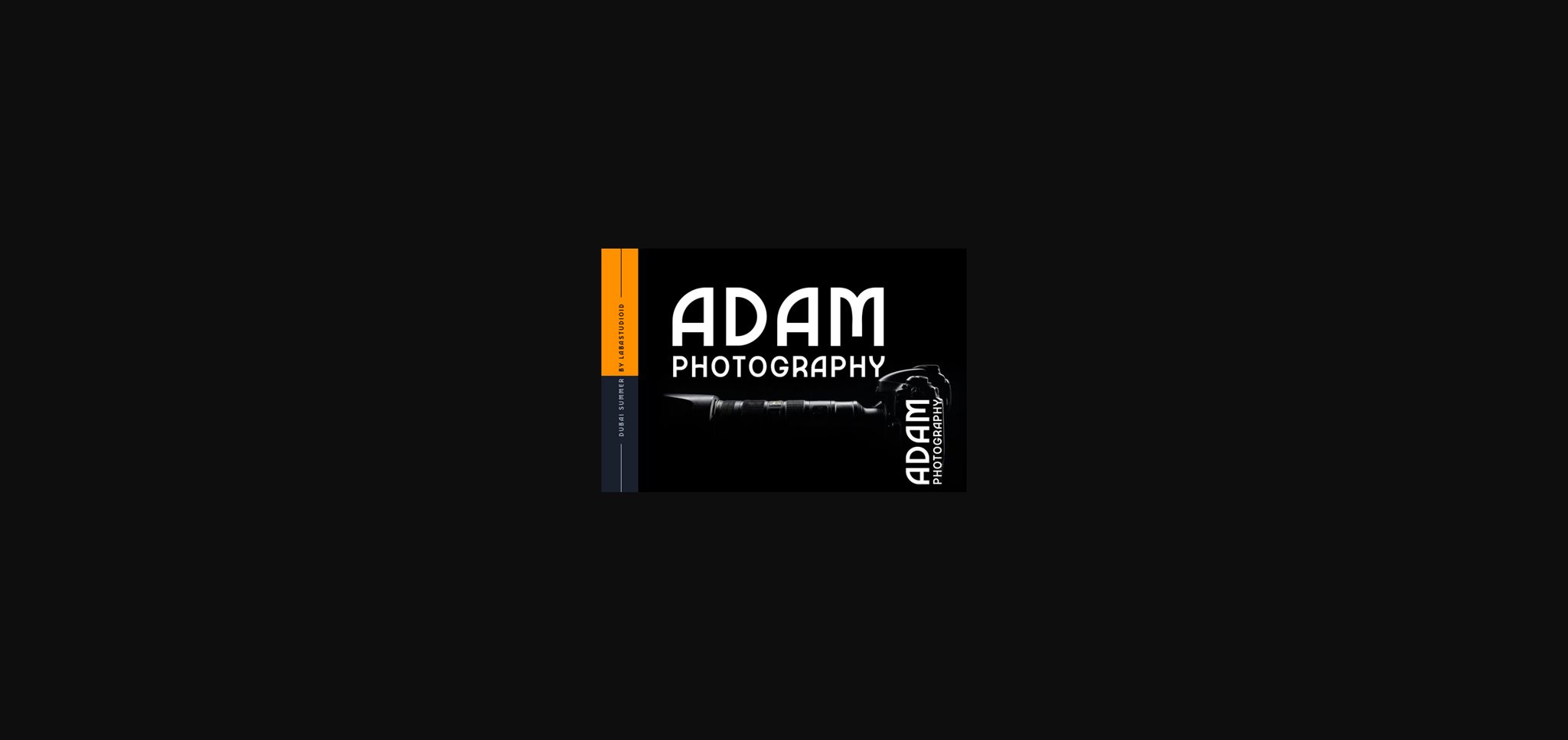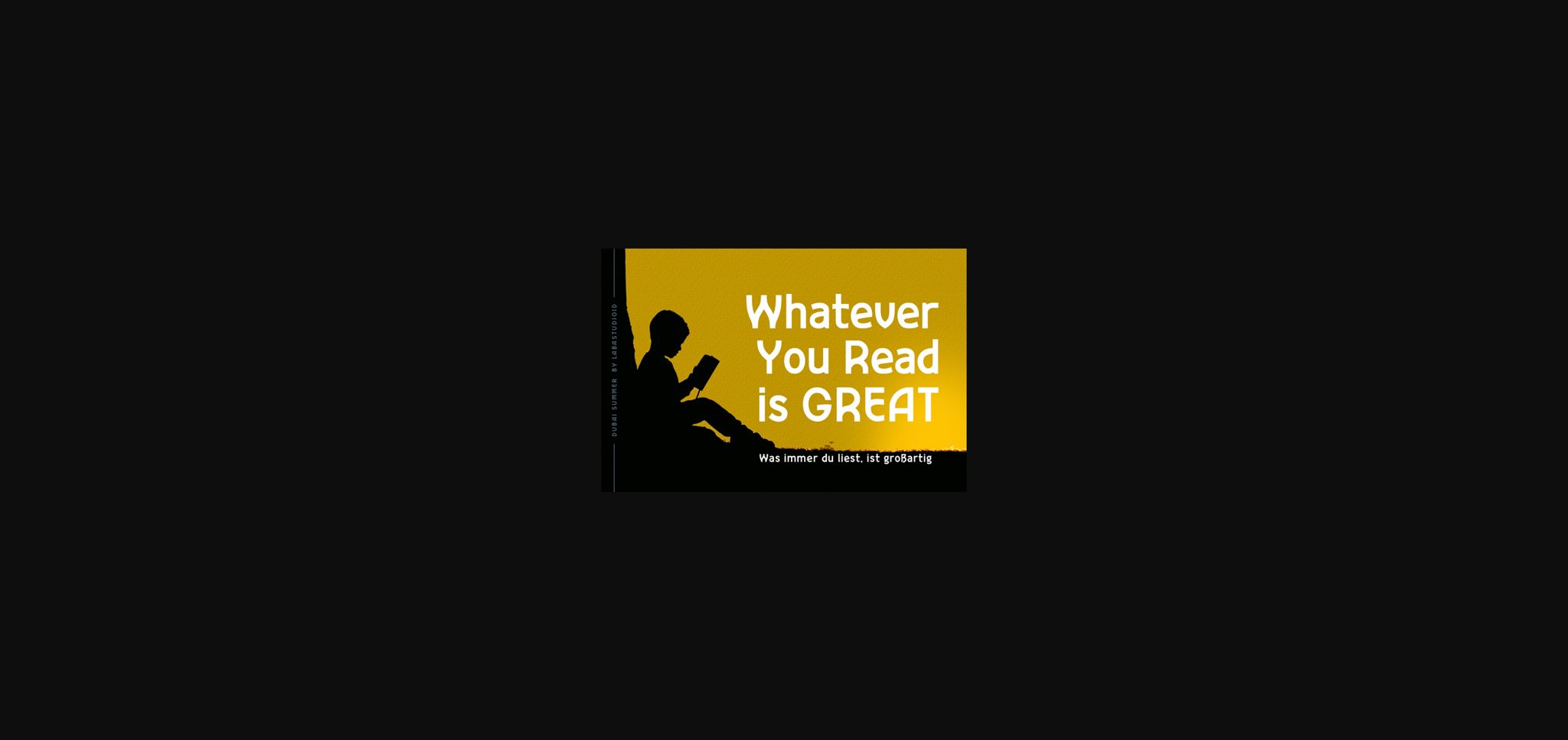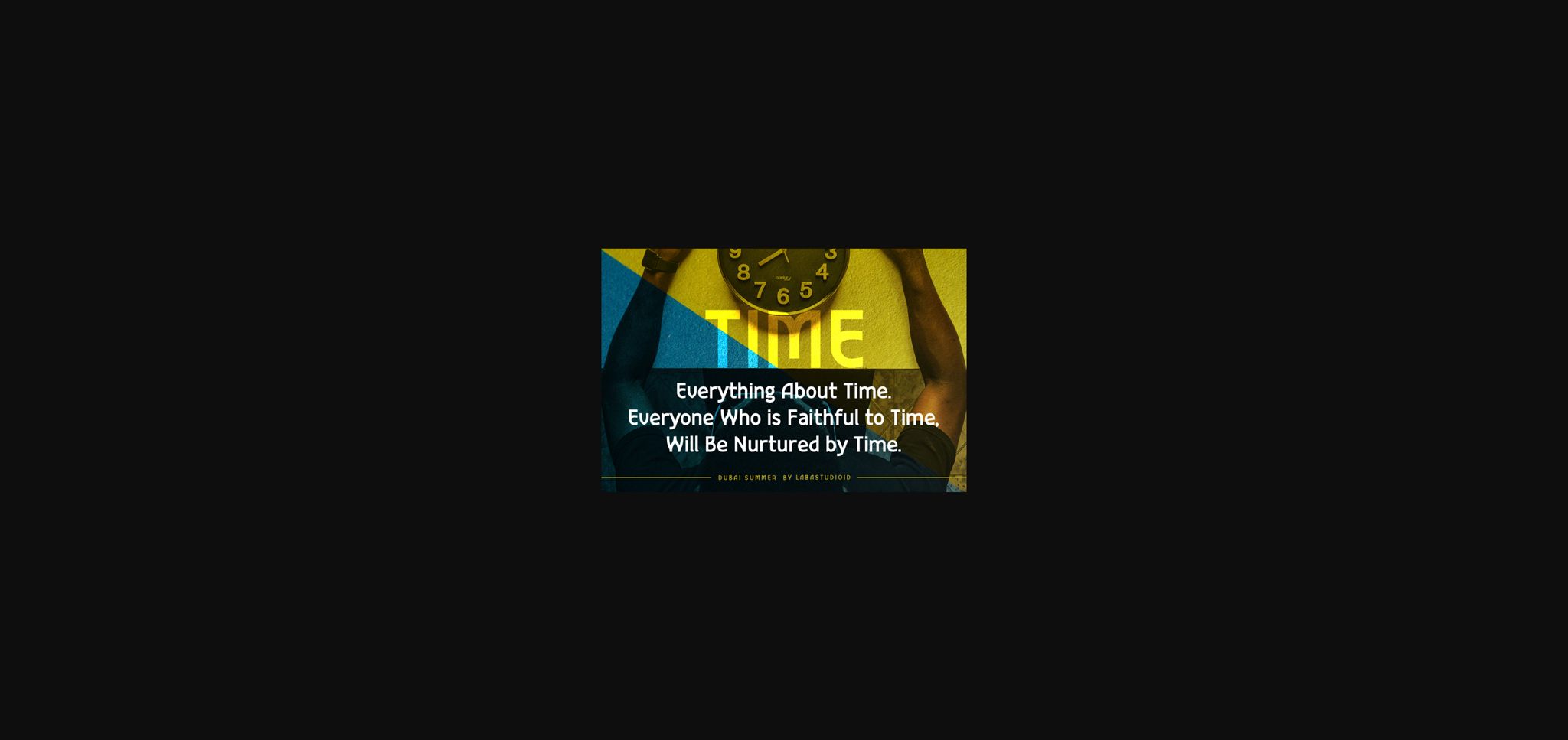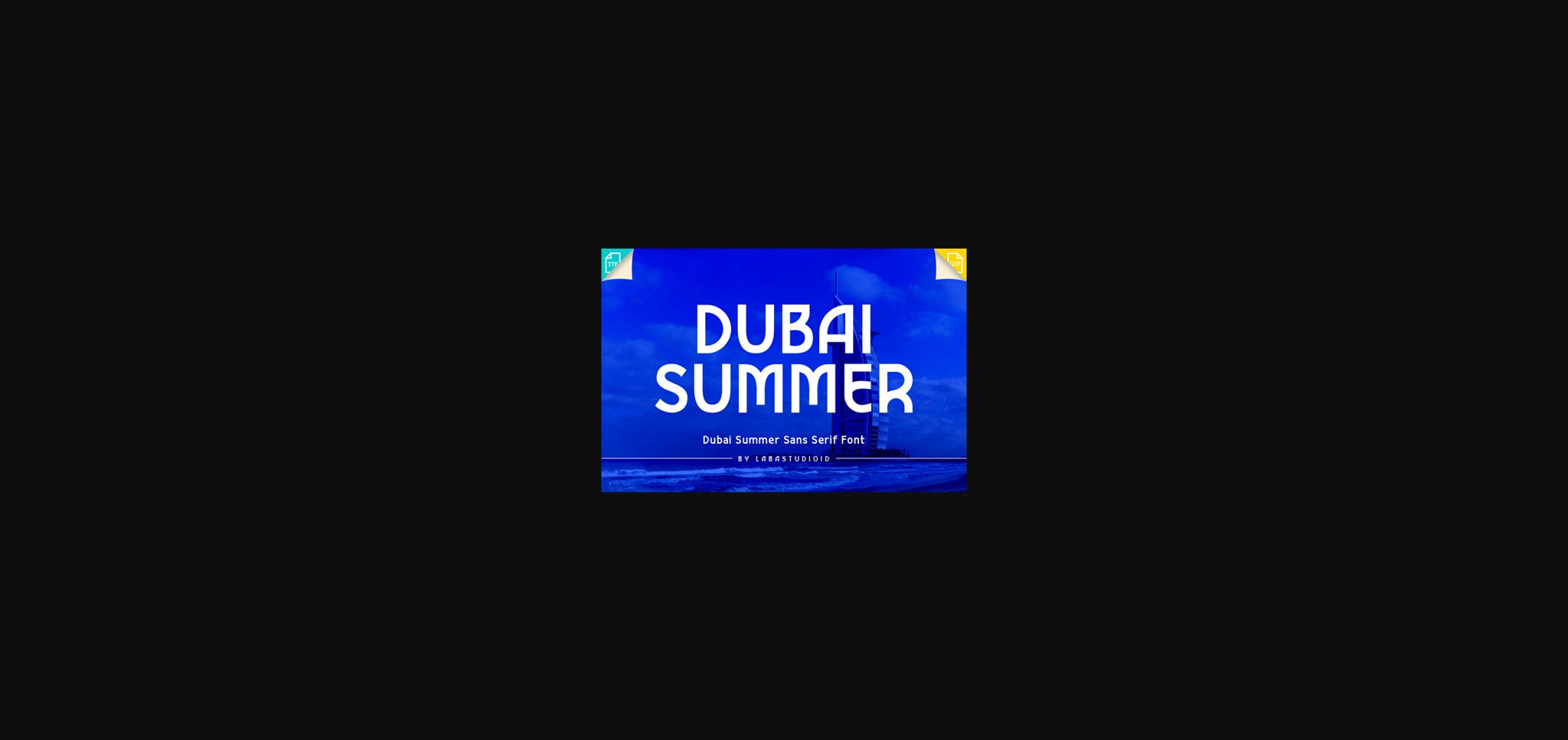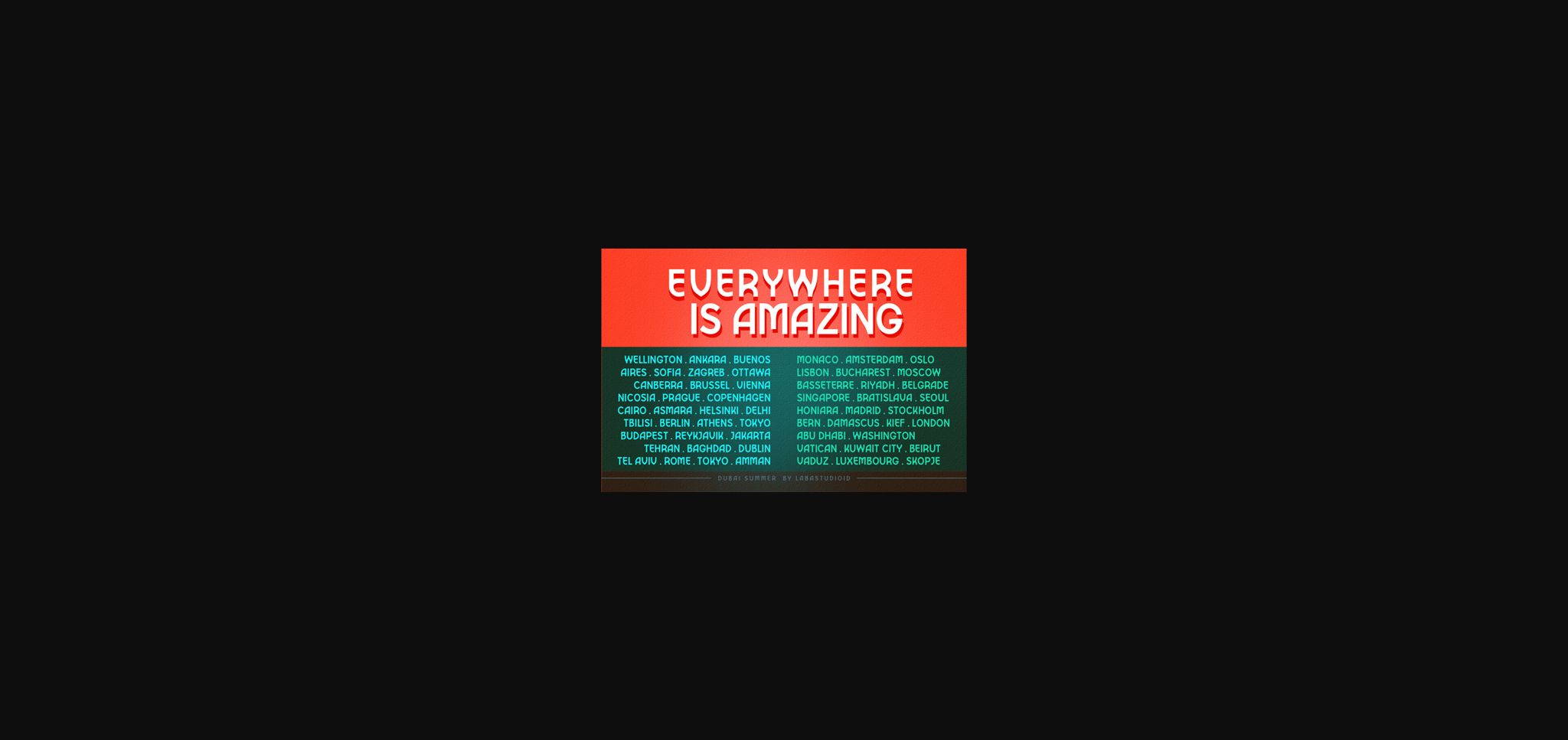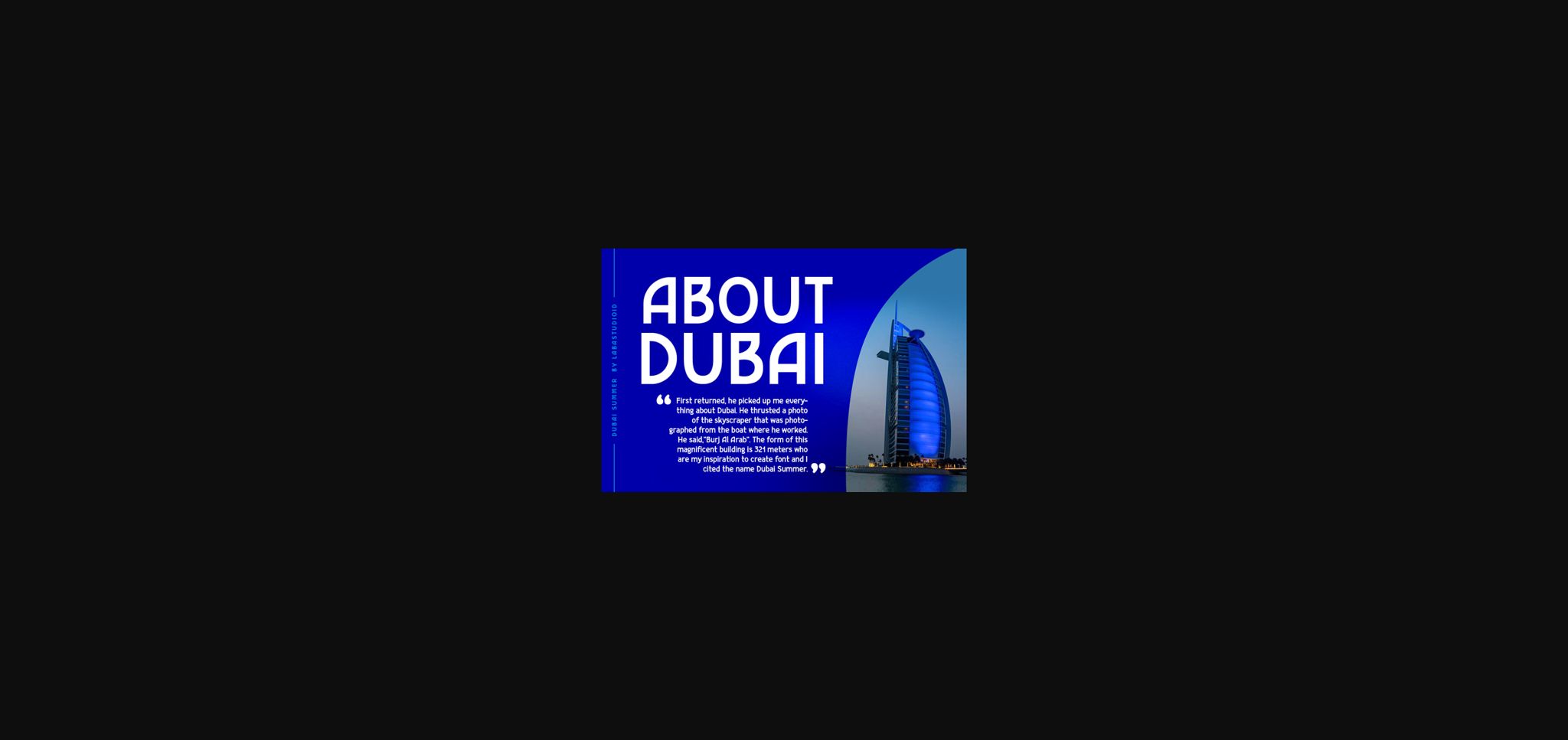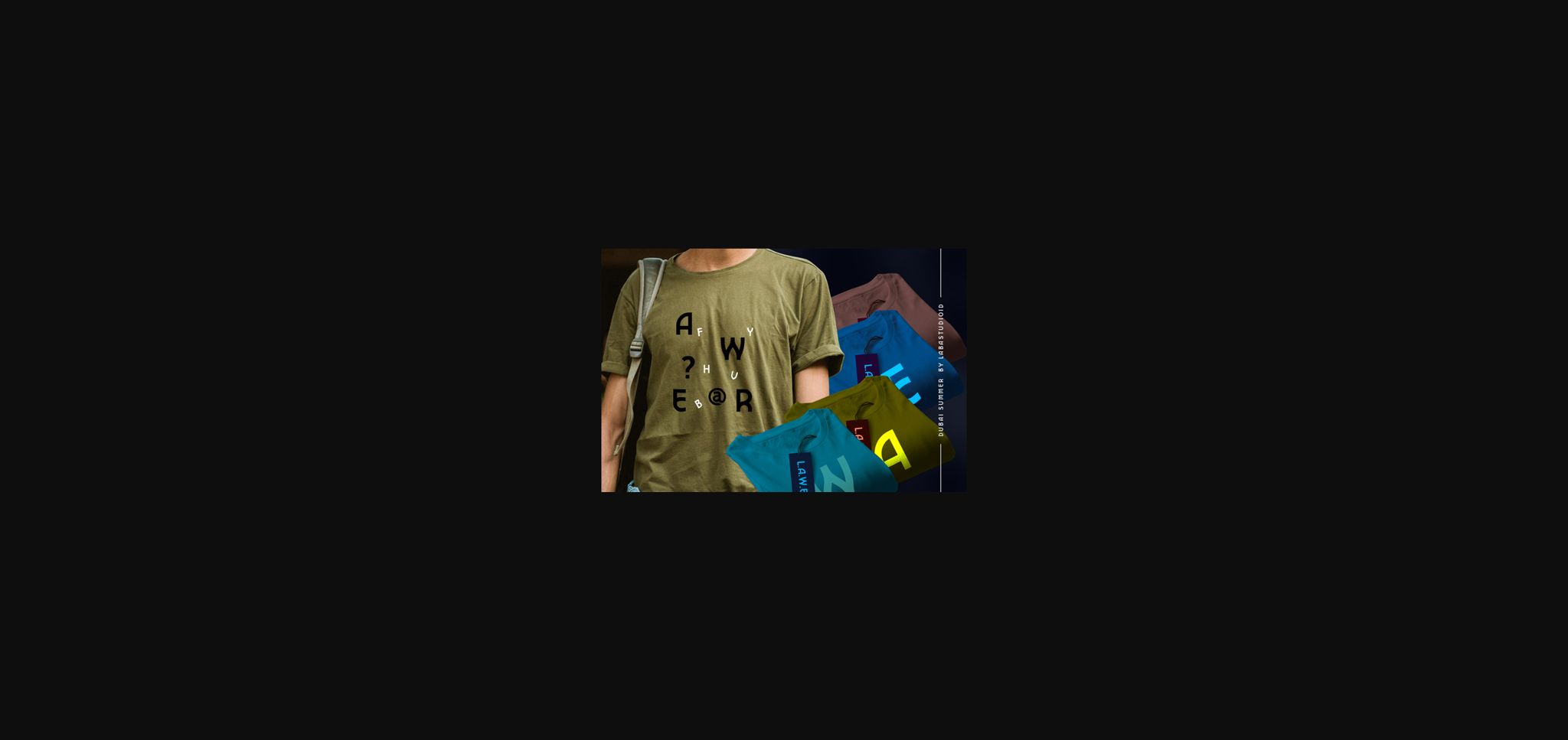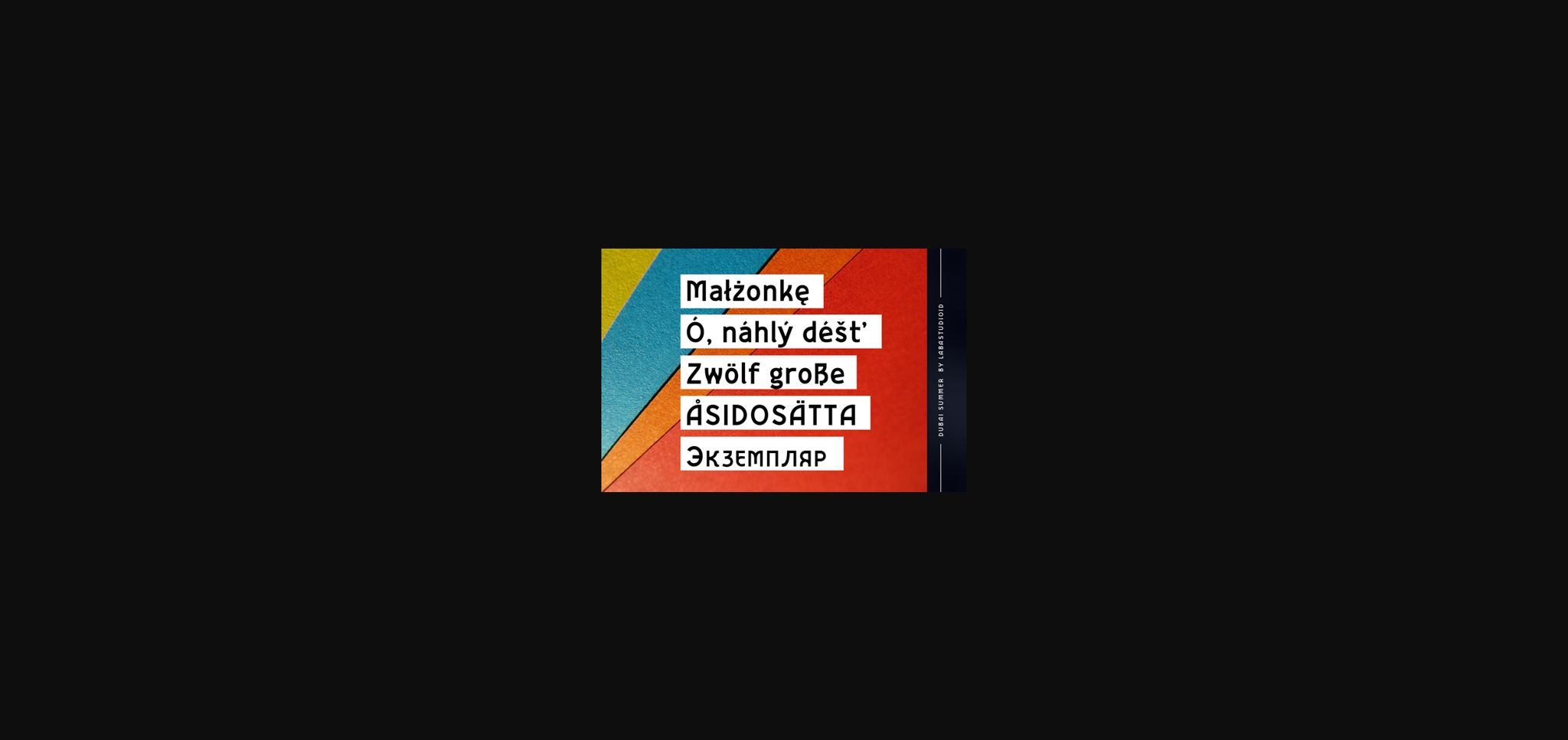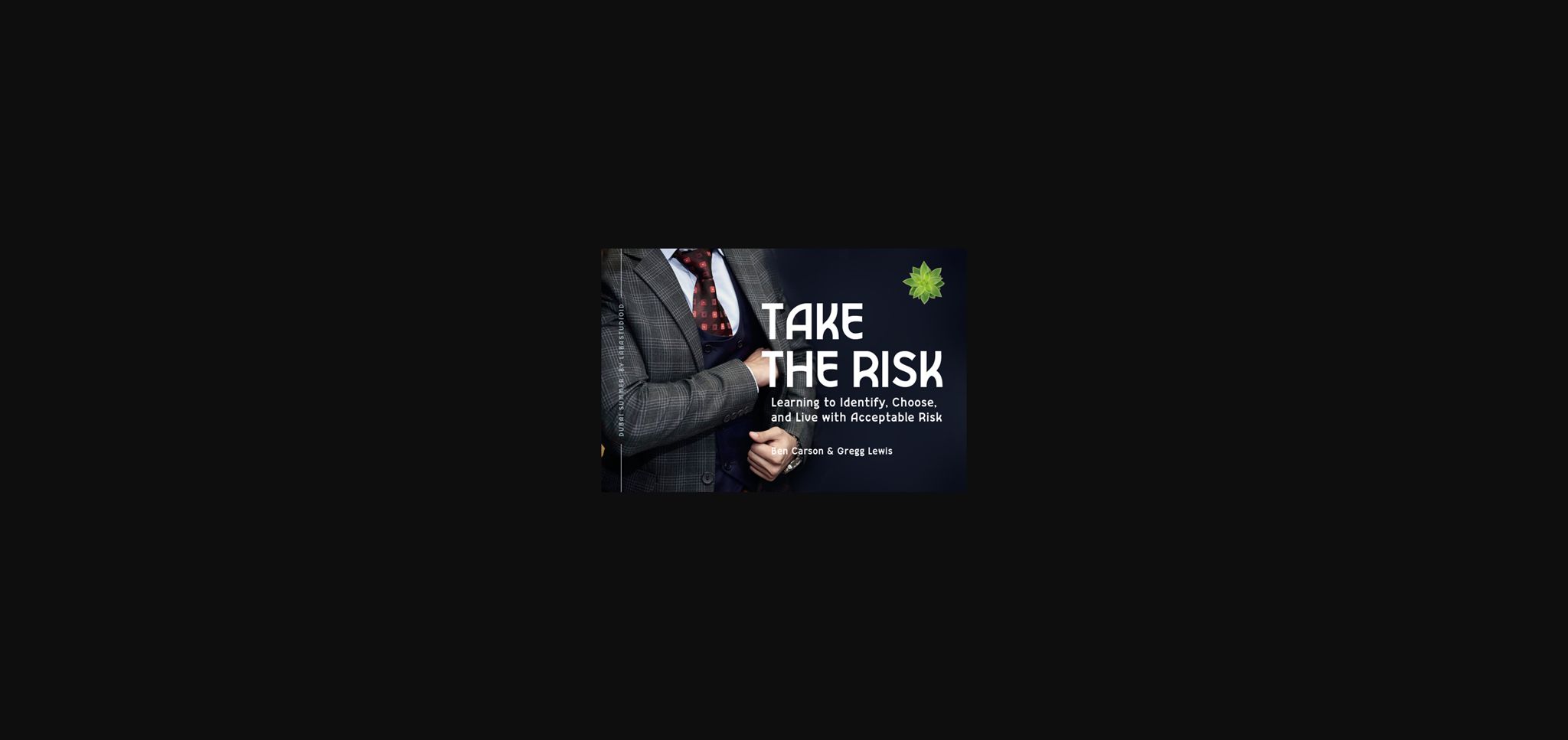
Dubai Summer Font
About Dubai Summer Font
Dubai Summer simplifies elegance into one truly outstanding sans serif font. With its neat and beautiful arrangement of letters, this typeface will look outstanding in both formal and non-formal designs.